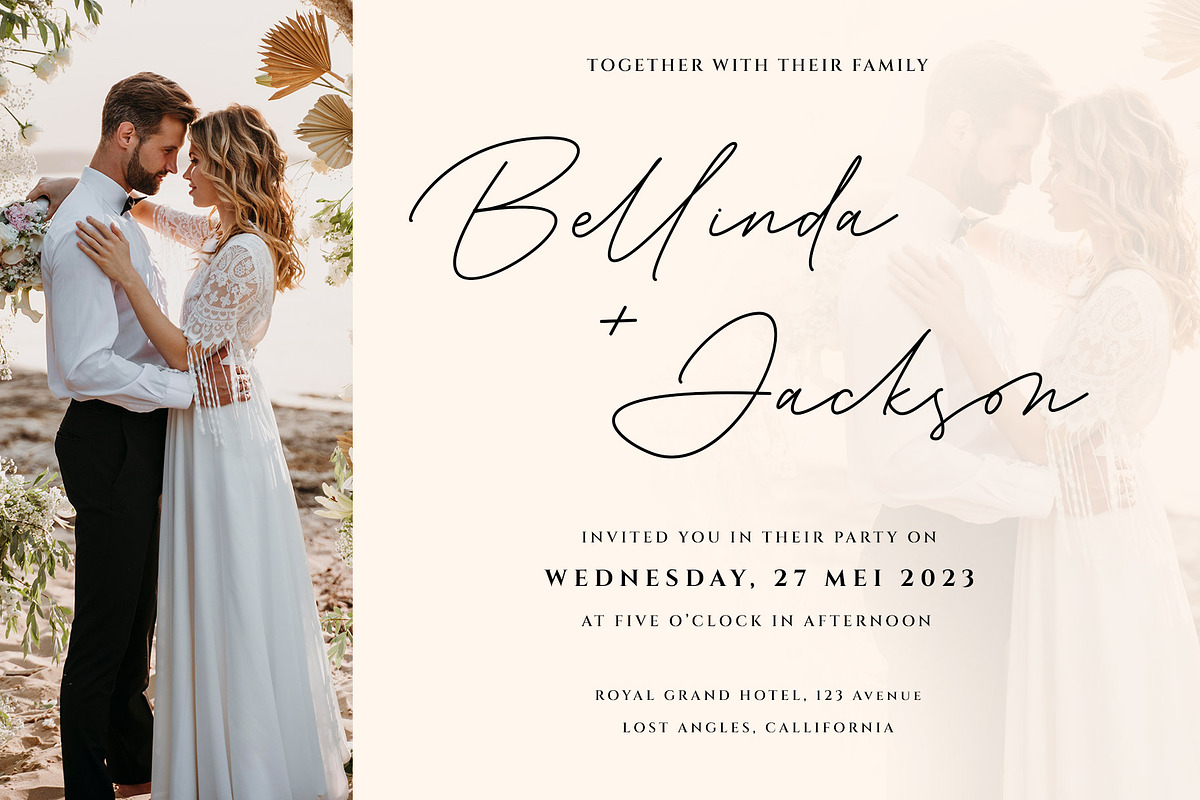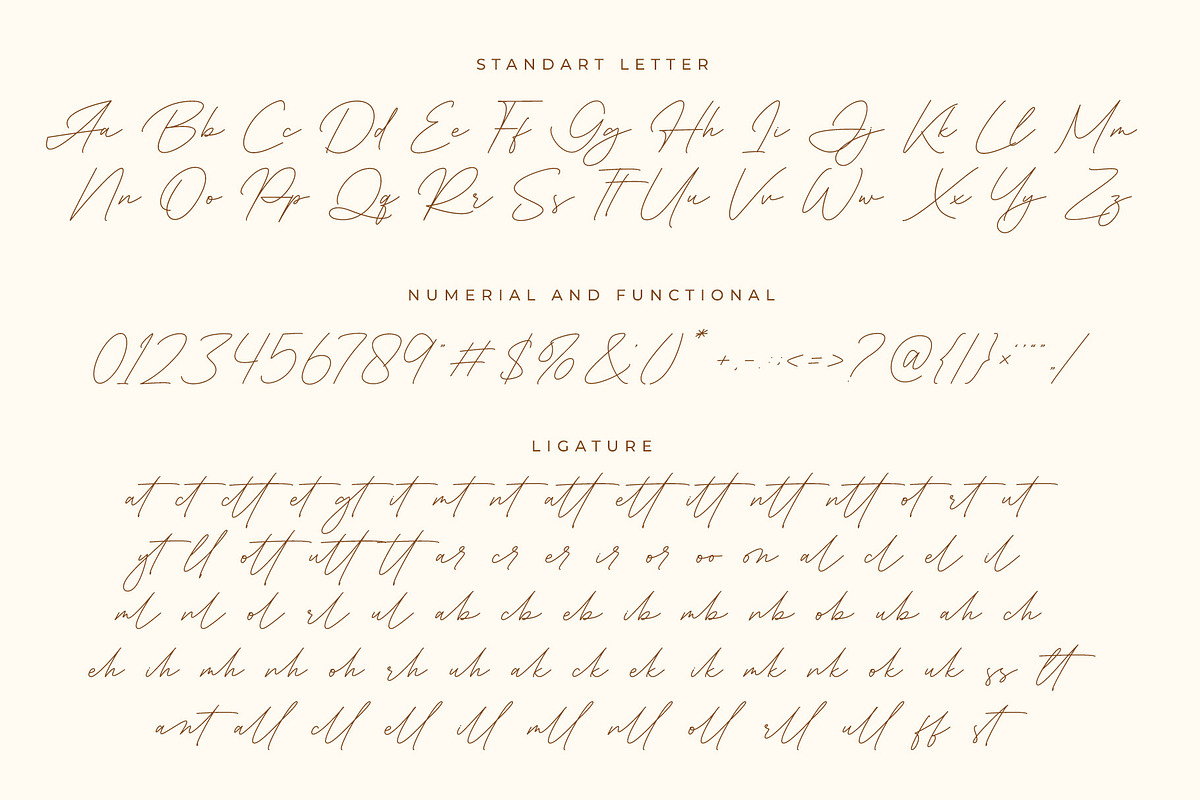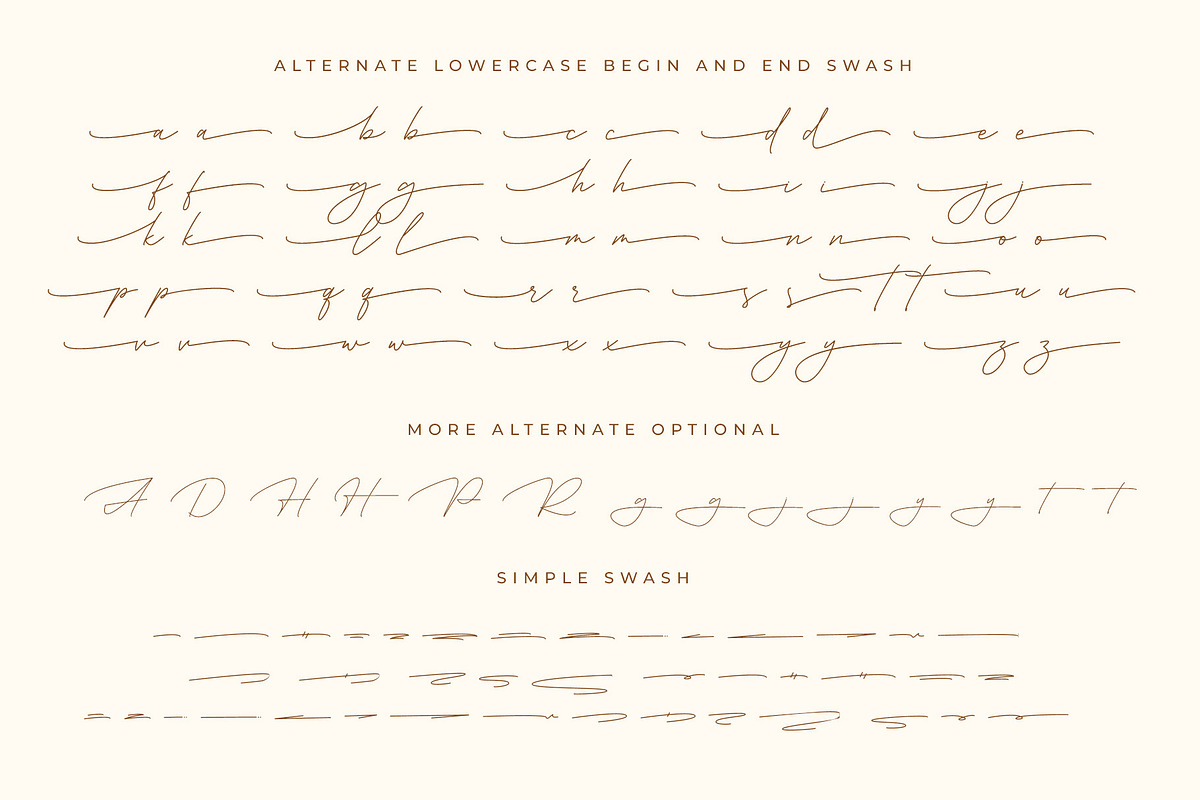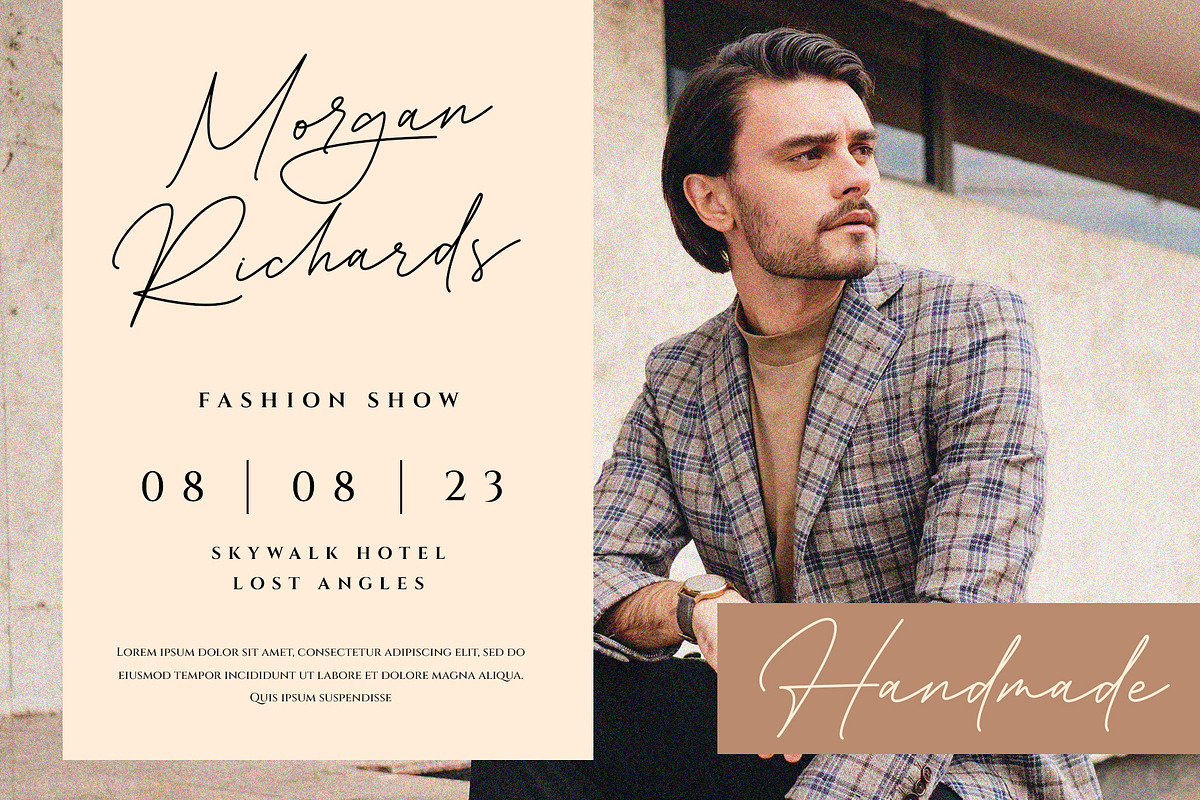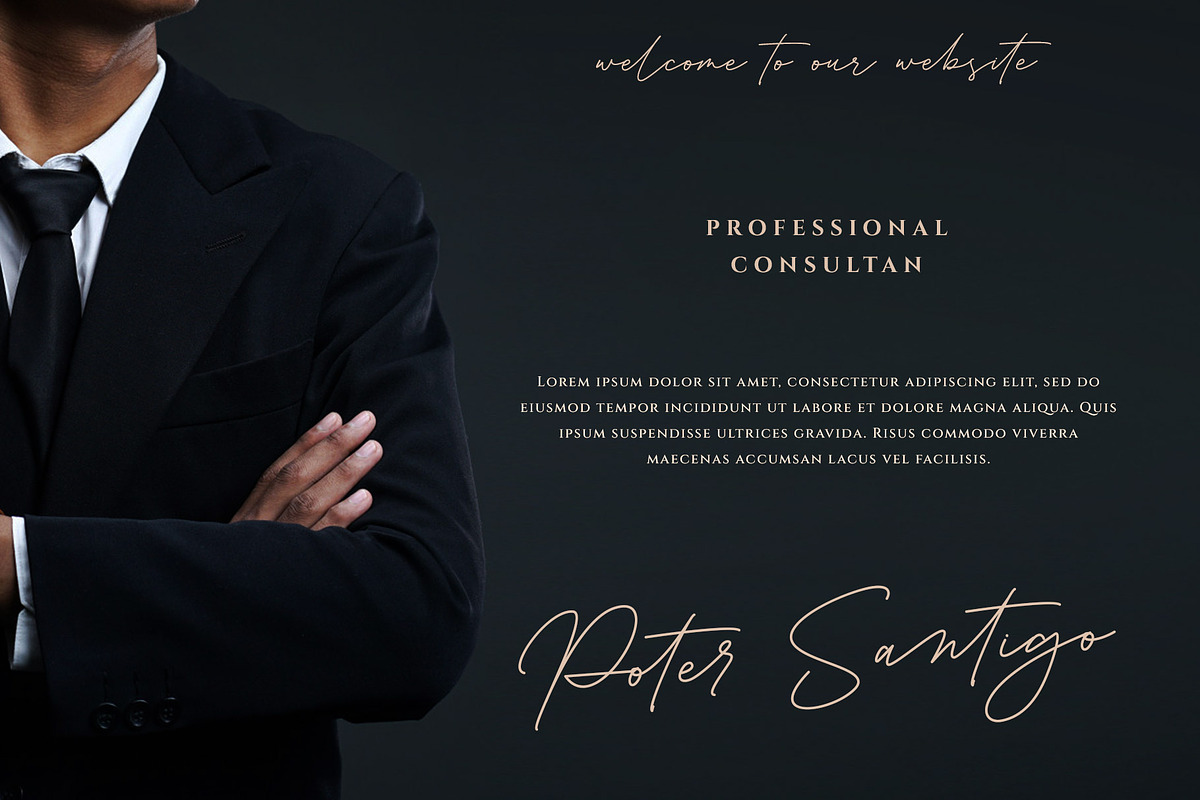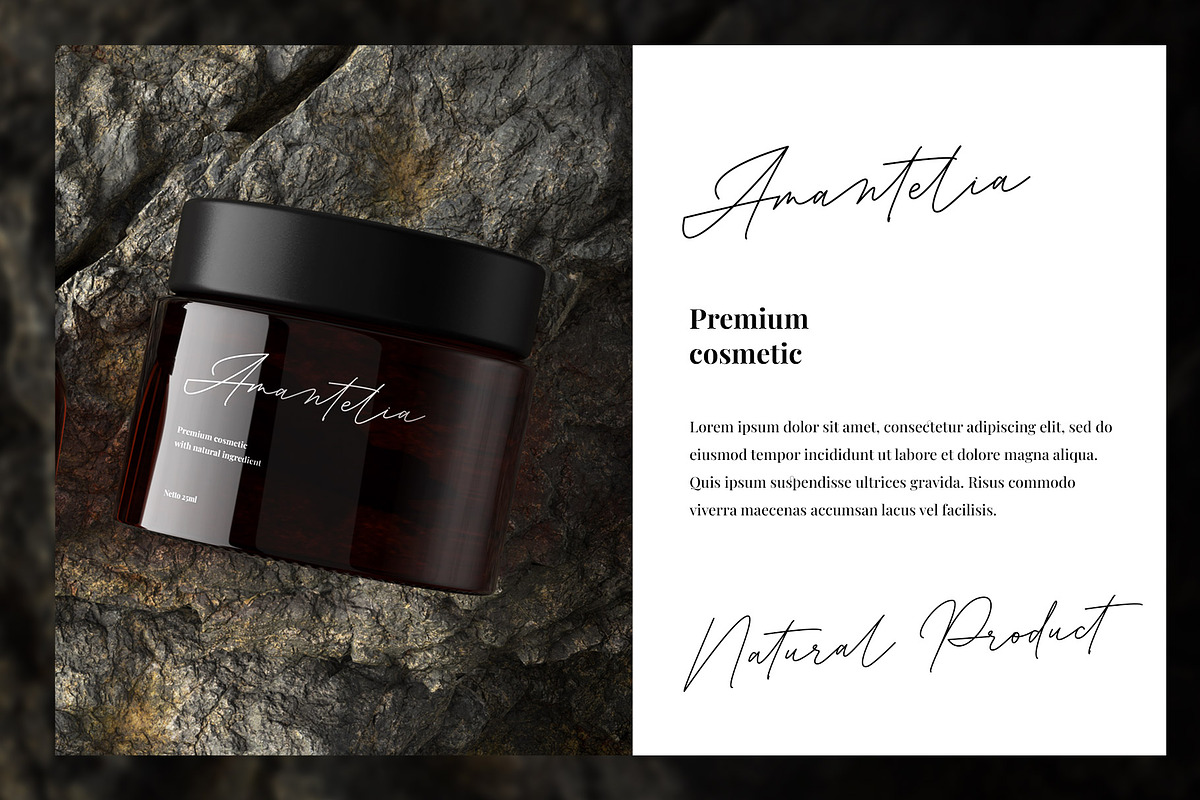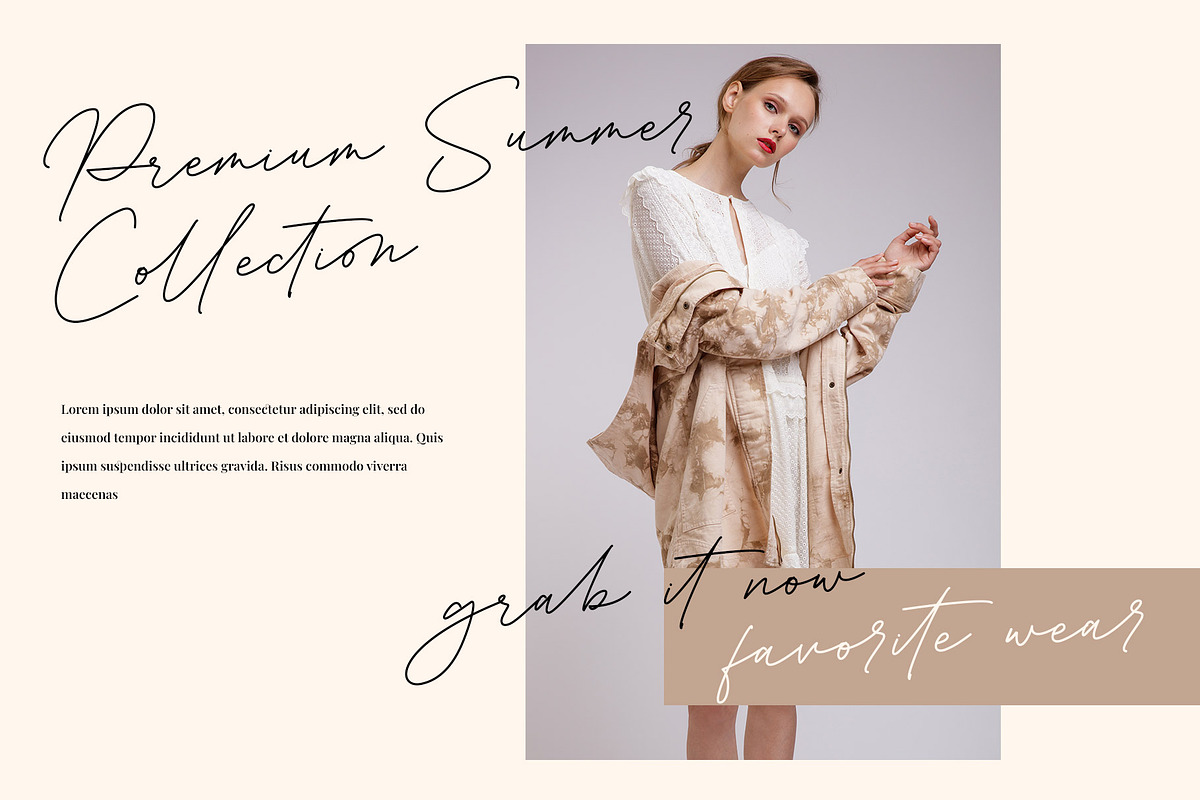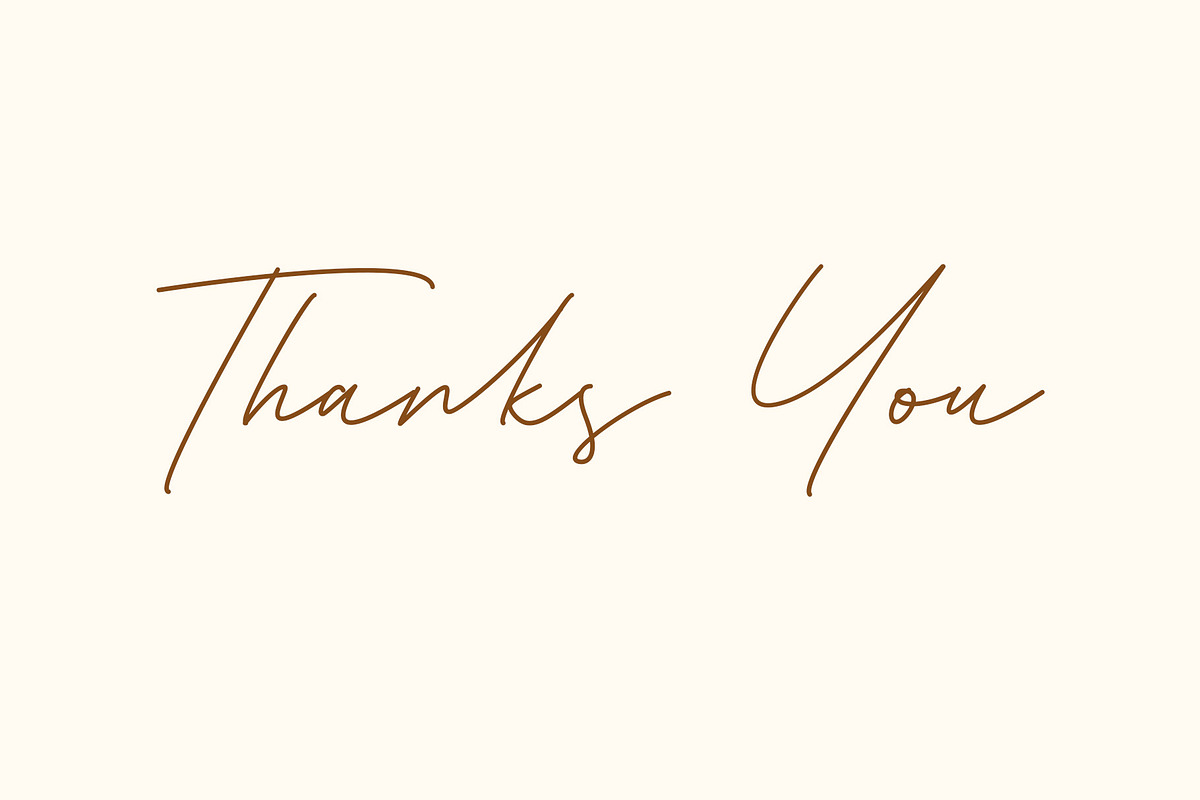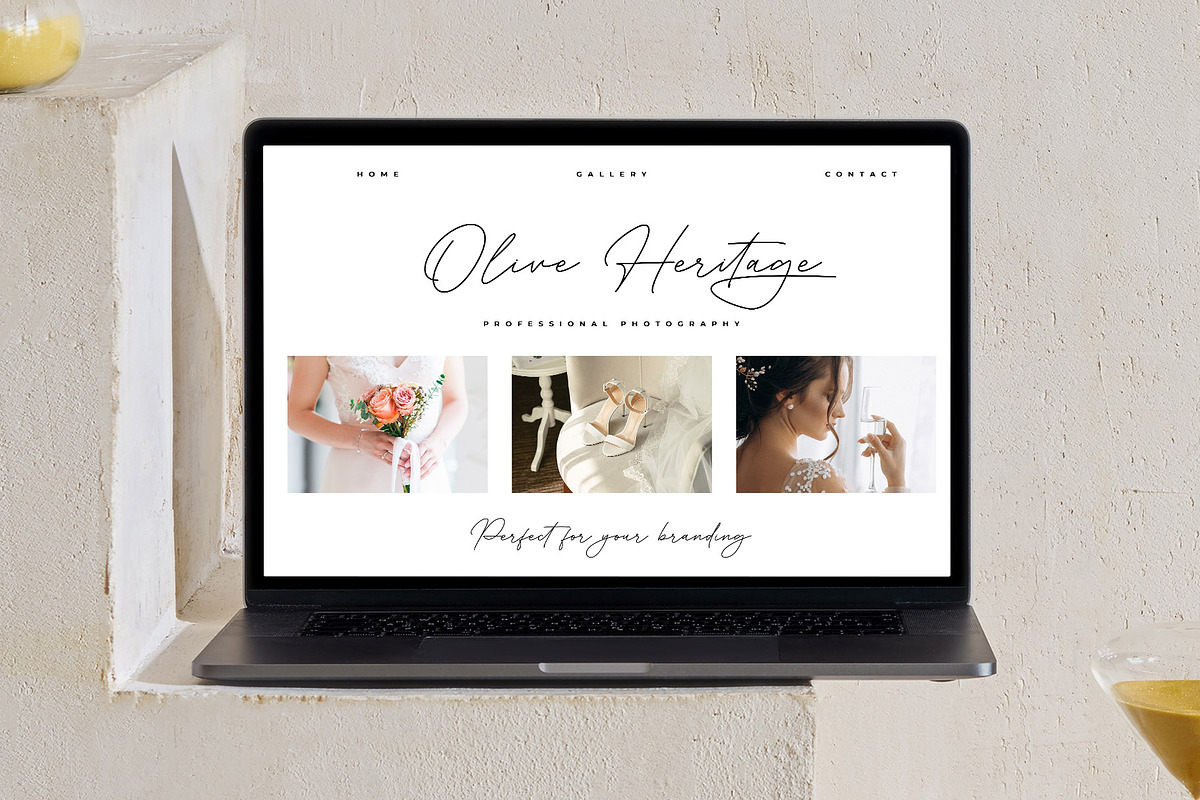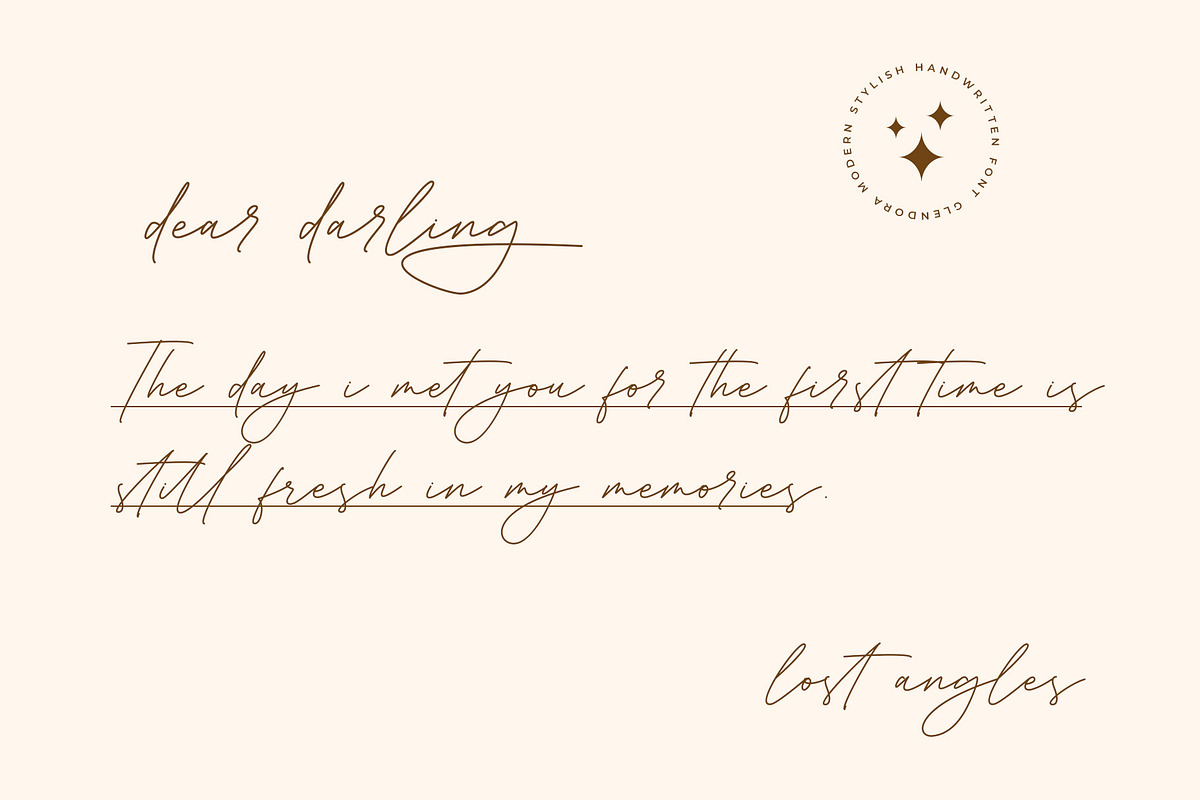
Consultant Signature Pen Font
Hi Ladies and Gentleman ! Proudly present signature pen font “Consultant” for you business.
Consultant - signature pen style which can be interpreted professional. we keep this font looks elegant, luxury, premium, modern, readable, stylish, catchy and easy to use. Consultant have more alternate, ligature and more swashes make your design more option.
Consultant - is the great choice for watermark on photography, branding, wedding event, signature or signature logo design, quotes, album cover, magazine, business card and many other design project. Consultant here to make your work to high level!!!
- Standar character A-Z and a-z
- Ligature and Alternate
- Lowercase begin and end swash
- Multilinggual support